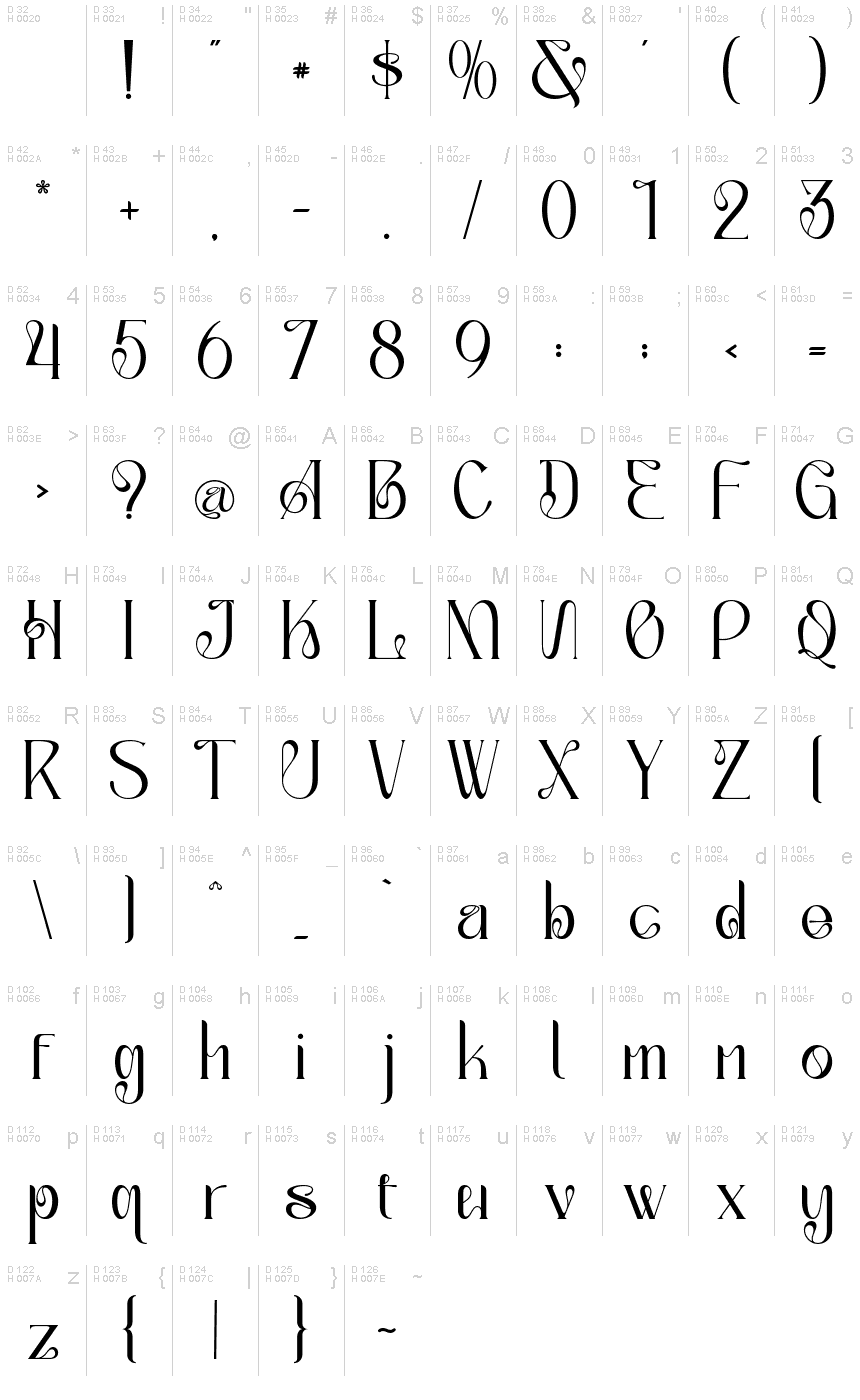
Alegros by Letterara stands as a beacon of retro charm in the modern design landscape. This semi-light display serif brings an air of elegance to any creative endeavor, infusing each project with a sense of nostalgia yet maintaining contemporary clarity. Its sleek lines and neat appearance make it a versatile choice for designers aiming to strike a balance between vintage allure and modern sophistication.
Perfect for branding, invitations, or editorial work, Alegros boasts alternates and ligatures that offer designers the flexibility to craft unique typographic compositions. Its suitability spans across various mediums—whether you're looking to create standout packaging or immersive web experiences, Alegros adapts effortlessly. Embrace this blend of past and present, where timeless style meets today's design standards with Alegros—a font that truly elevates your creative vision.